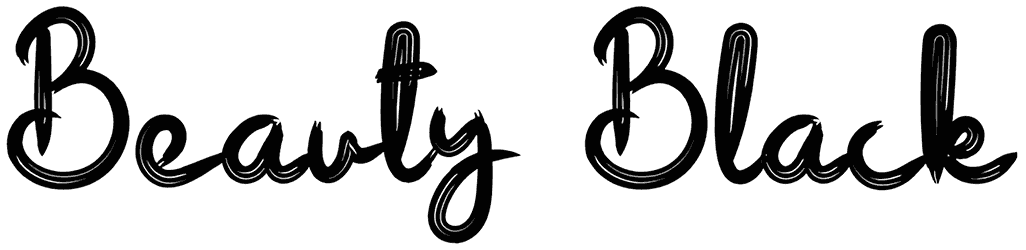
Beauty Black Font
Beauty Black combines clean, linear, and natural elements with a calligraphic aesthetic to create a style that looks unique in more modern applications. This brush font is a fantastic option for customizing your designs that can attract any viewer.
The dignity and integrity of this travel font is a factor that empowers a brand and can be an all-in-one tool for all kinds of artistic designs, such as website banners, logos, wedding cards, and friendly letters.